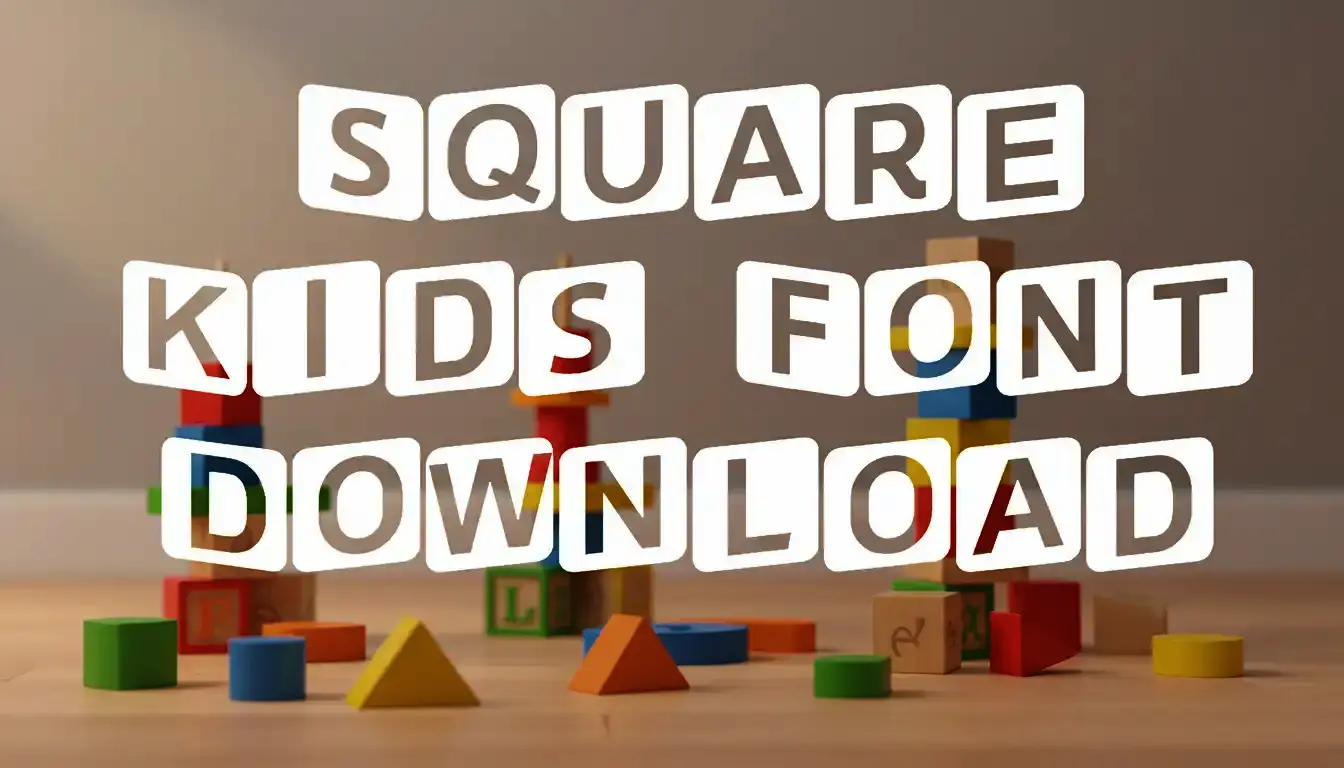
Square Kids Font
Square Kids Font Preview
Square Kids
Square Kids Character Map
Square Kids is a fancy font. It's a decorative display font with plenty of personality, made to grab attention. It's a free download, and you can try it with your own text in the preview above first.
What You Can Type With Square Kids
You get every letter from A to Z in both cases and all the numbers from 0 to 9, which means Square Kids can handle full sentences, dates and prices. Common punctuation such as &, !, ? and @ is included as well. It doesn't include accented letters such as é or ñ, which makes it an English-only font.
Where Square Kids Works Best
Think of Square Kids for posters, logos and eye-catching headlines. Use it for one standout word or headline and let simpler fonts handle the rest.
Does Square Kids support accented letters?
No. Square Kids has no accented letters such as é, ñ or ü, so it's best for English text.